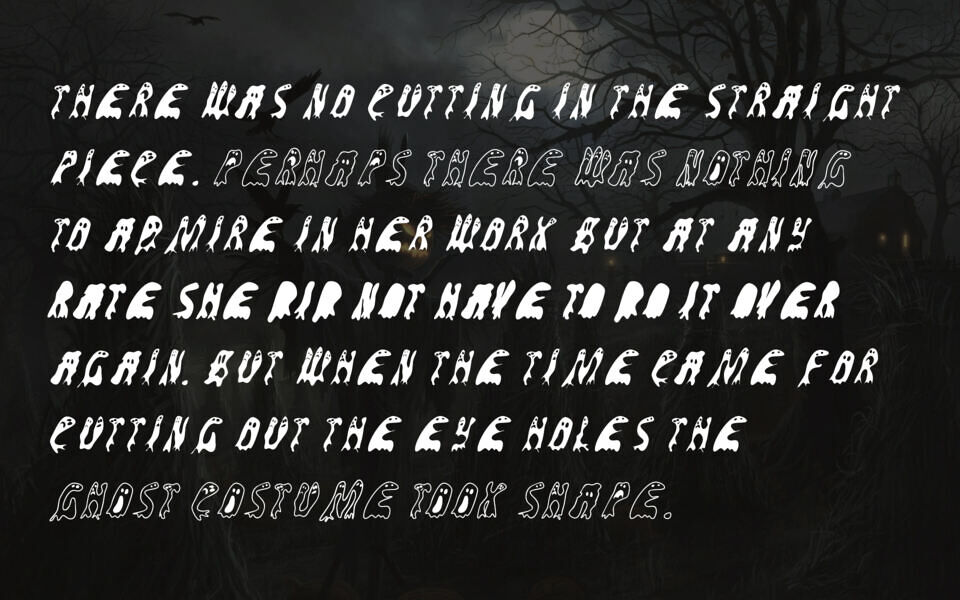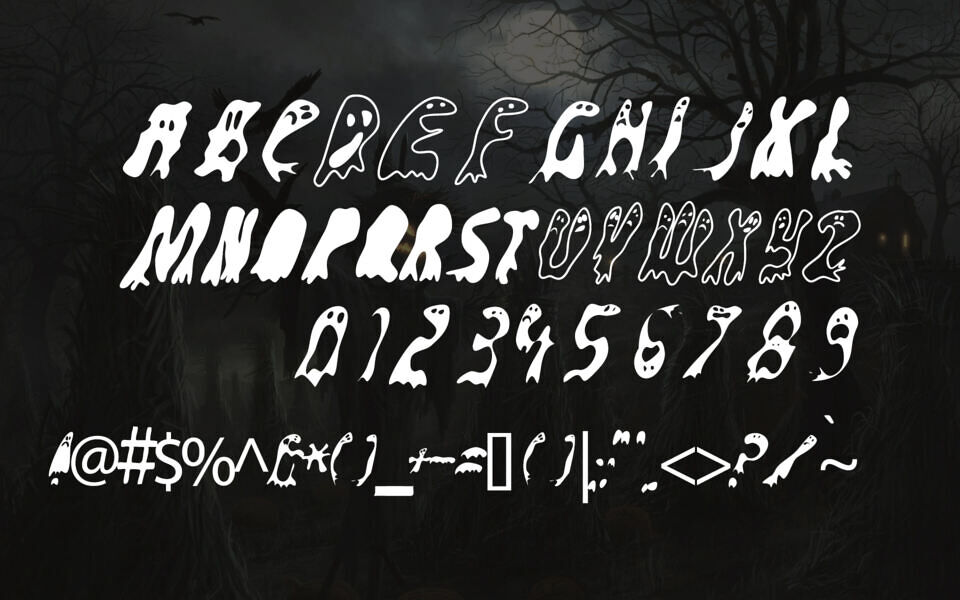
Groovy Ghosties is a whimsical display font by Ray Larabie from Typodermic Fonts, featuring playful ghostly characters forming each letter. Ideal for Halloween themes, children’s designs, or any project needing a spooky yet fun touch.